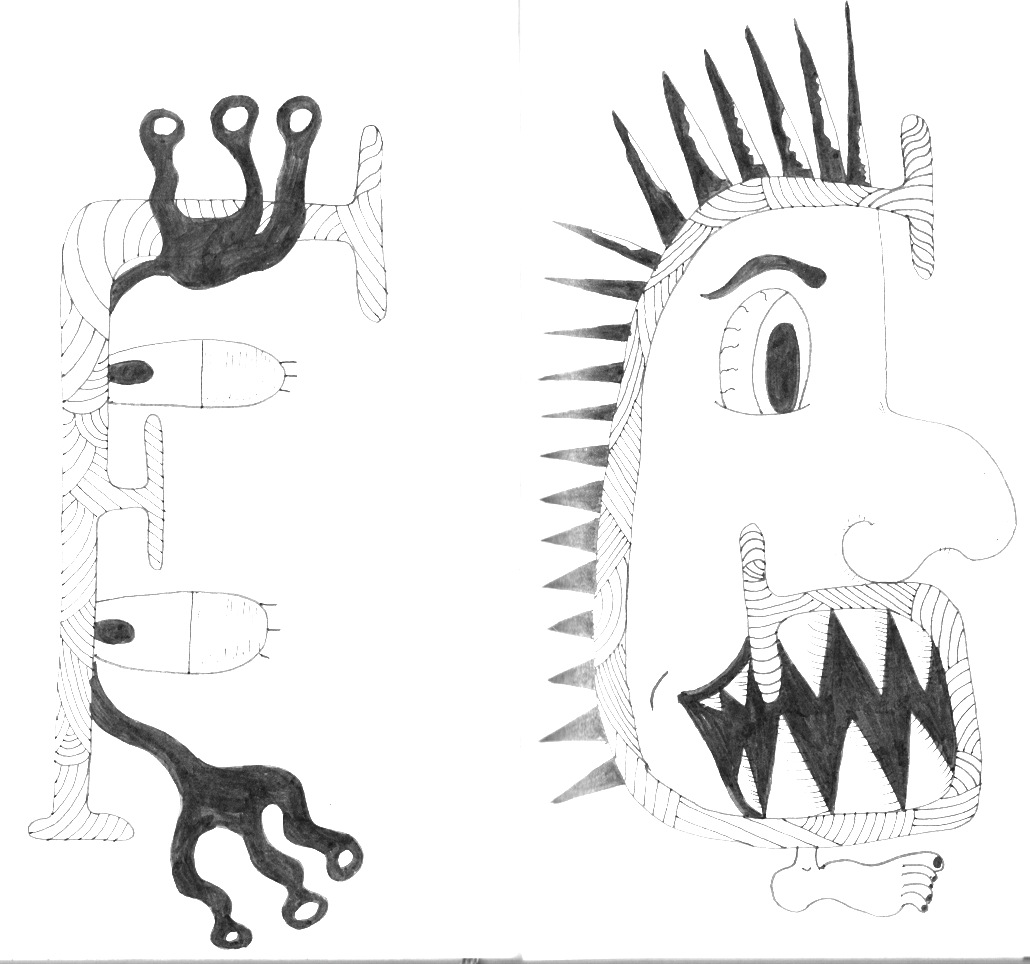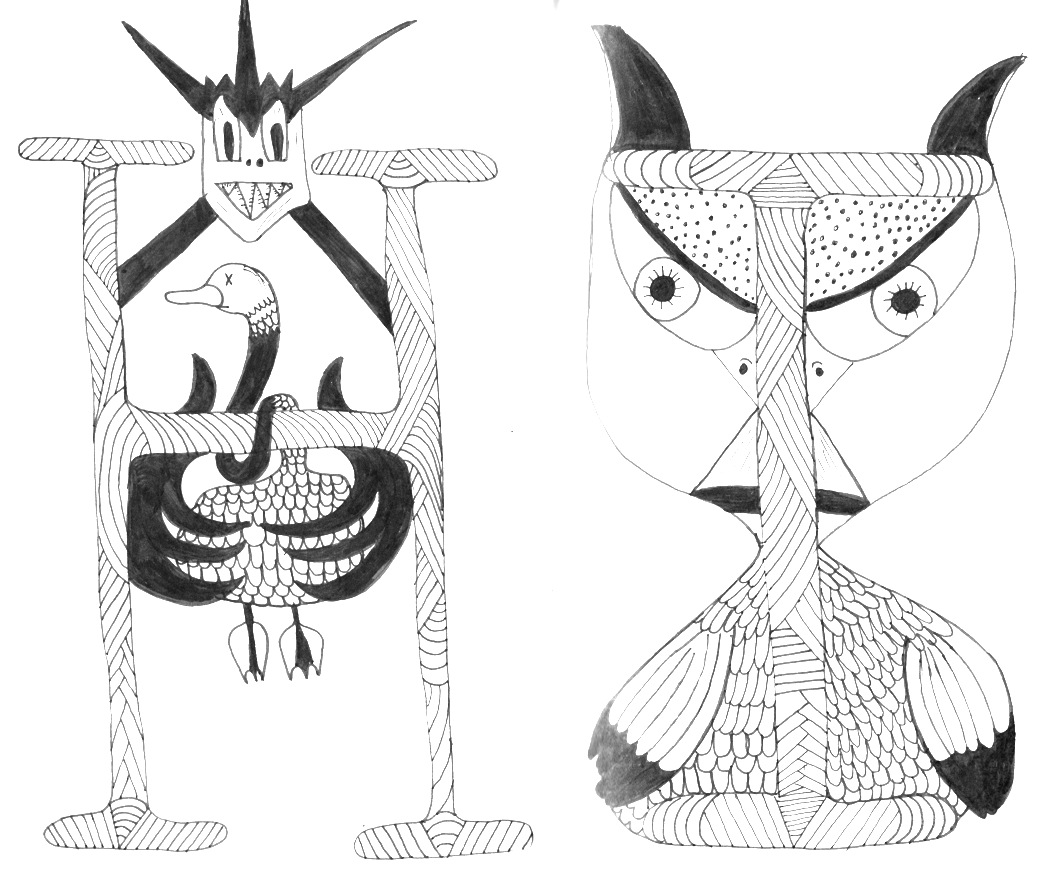
Veronika Kiriyenko
Moscow-based designer at Leo Burnett Moscow. Creator of the Cyrillic poster typeface Moms Alphabet (2014) and the fun Monster Alphabet (2015).